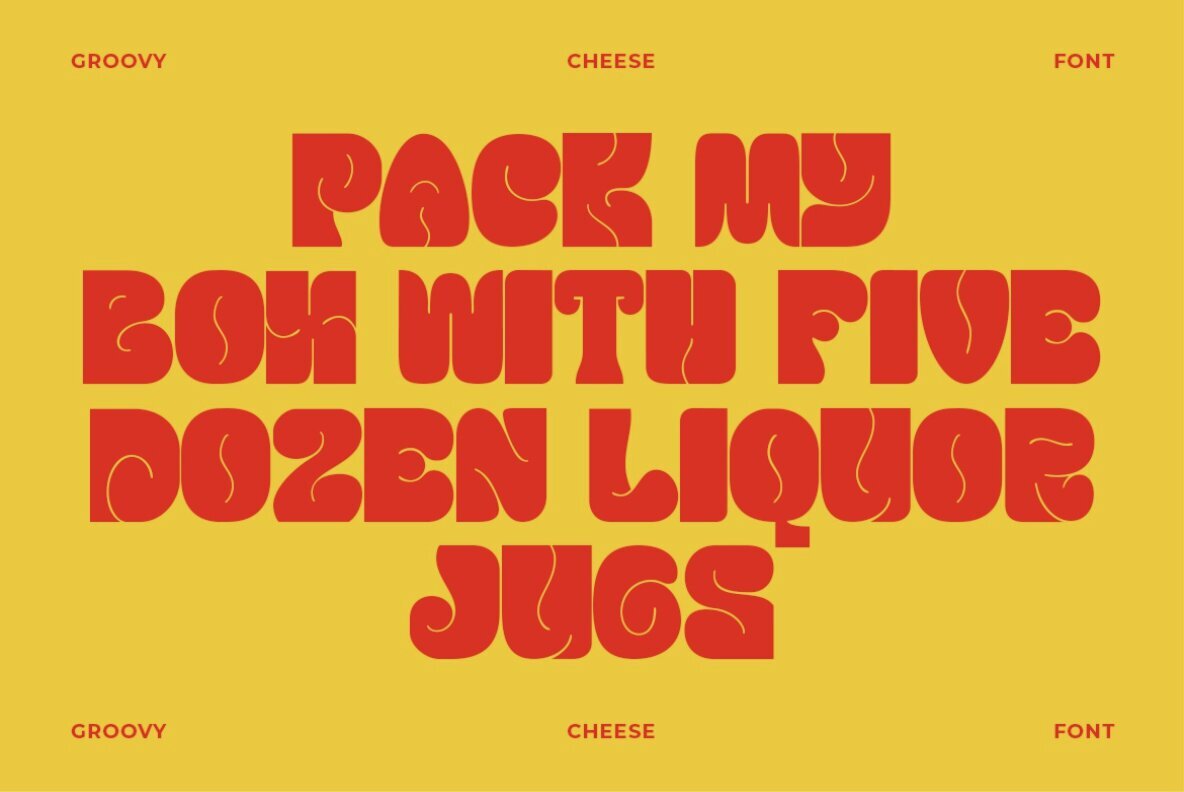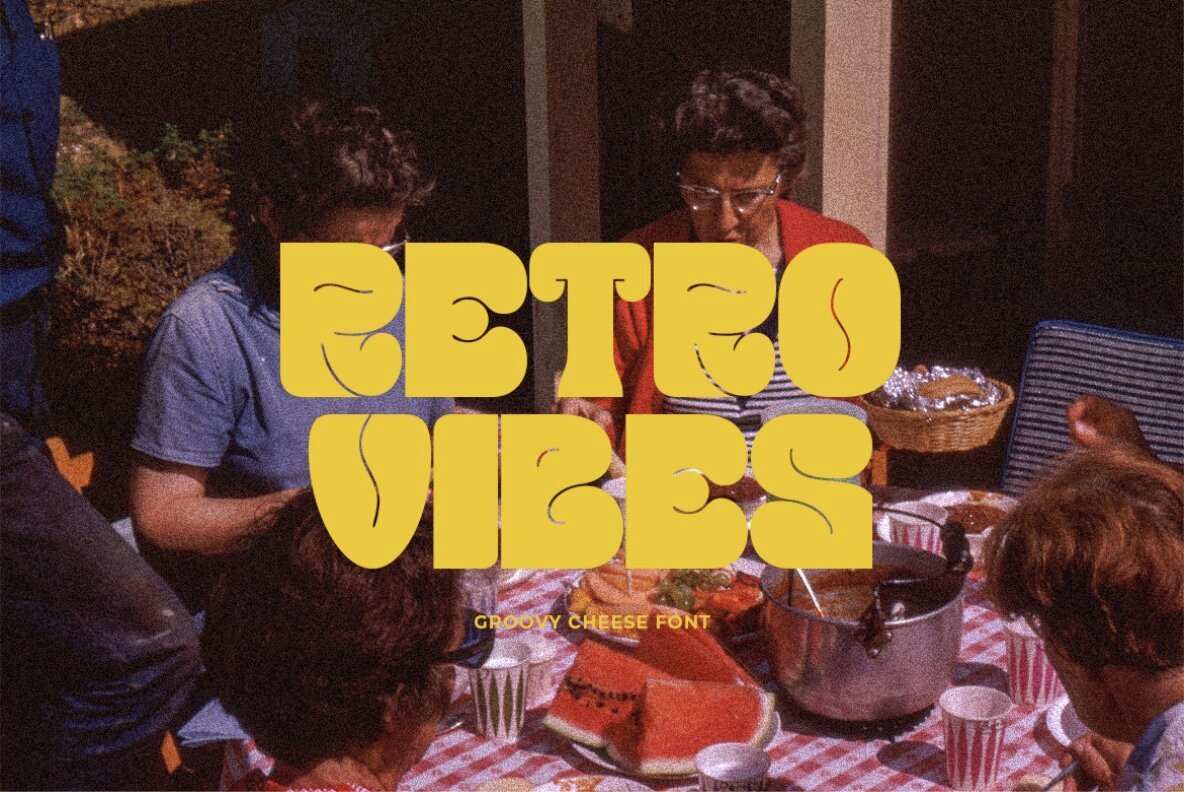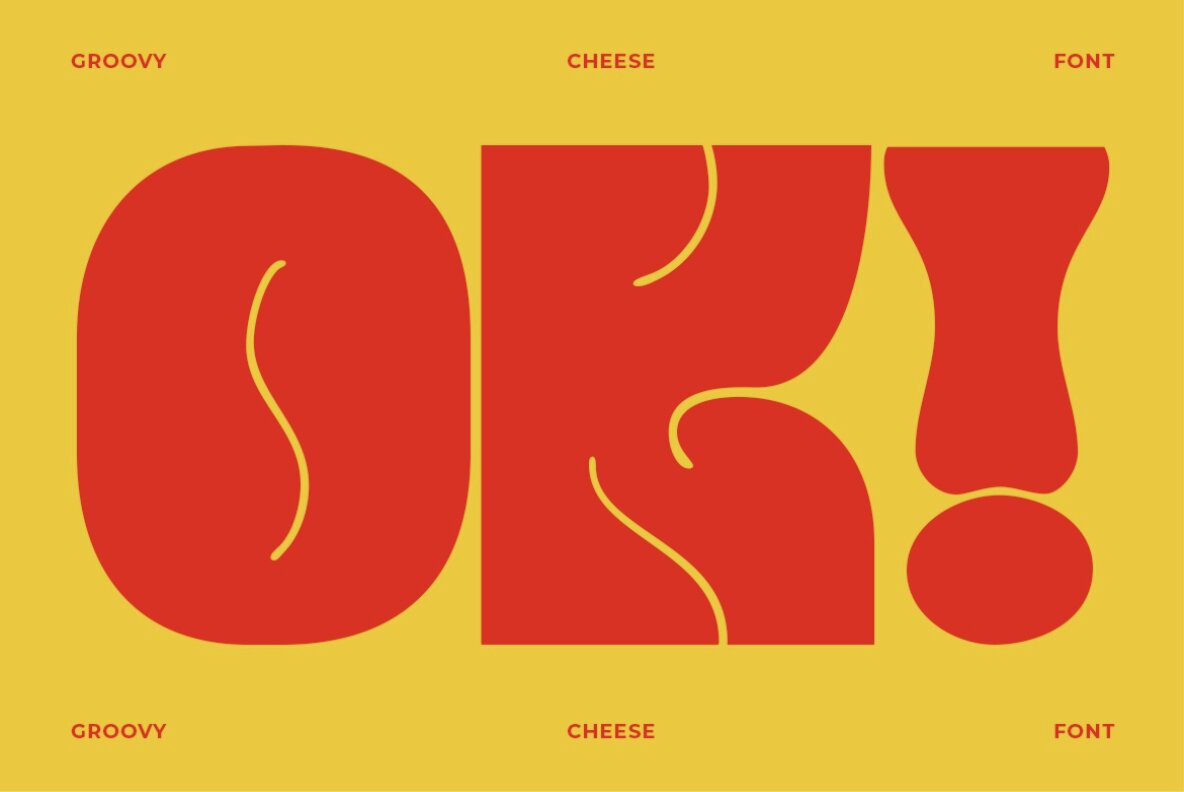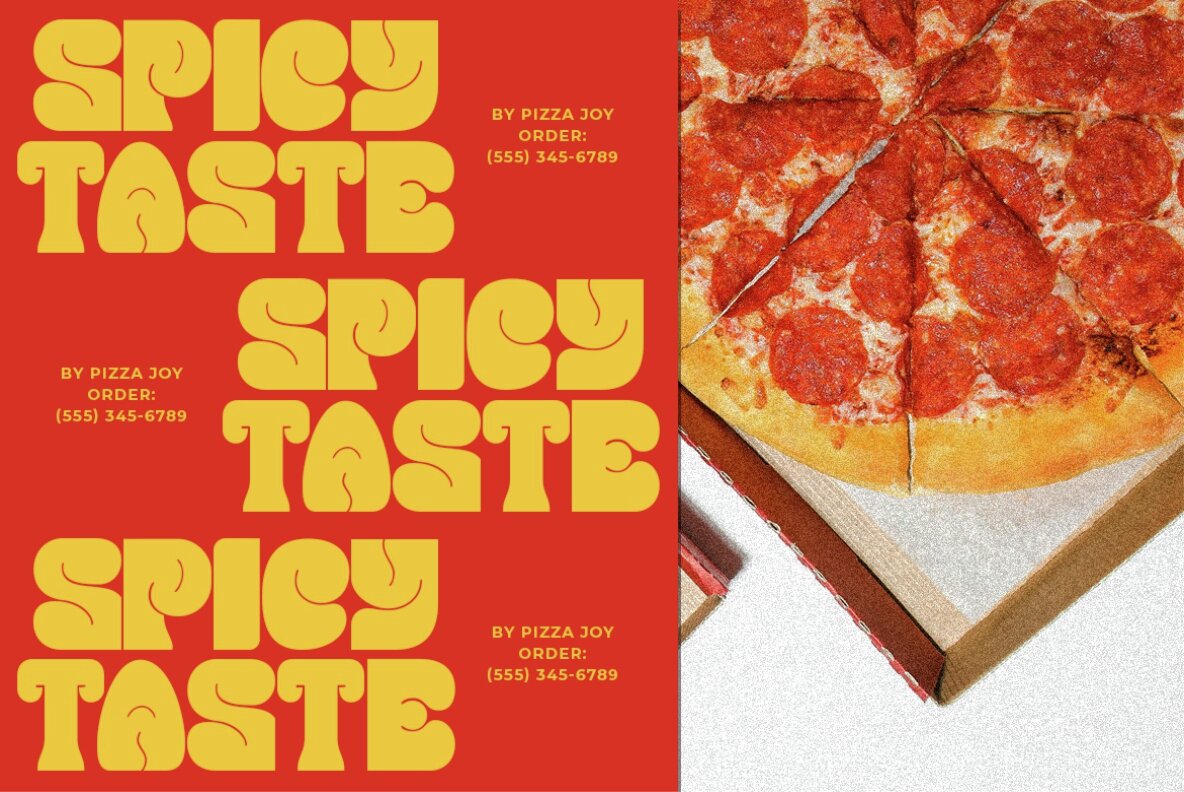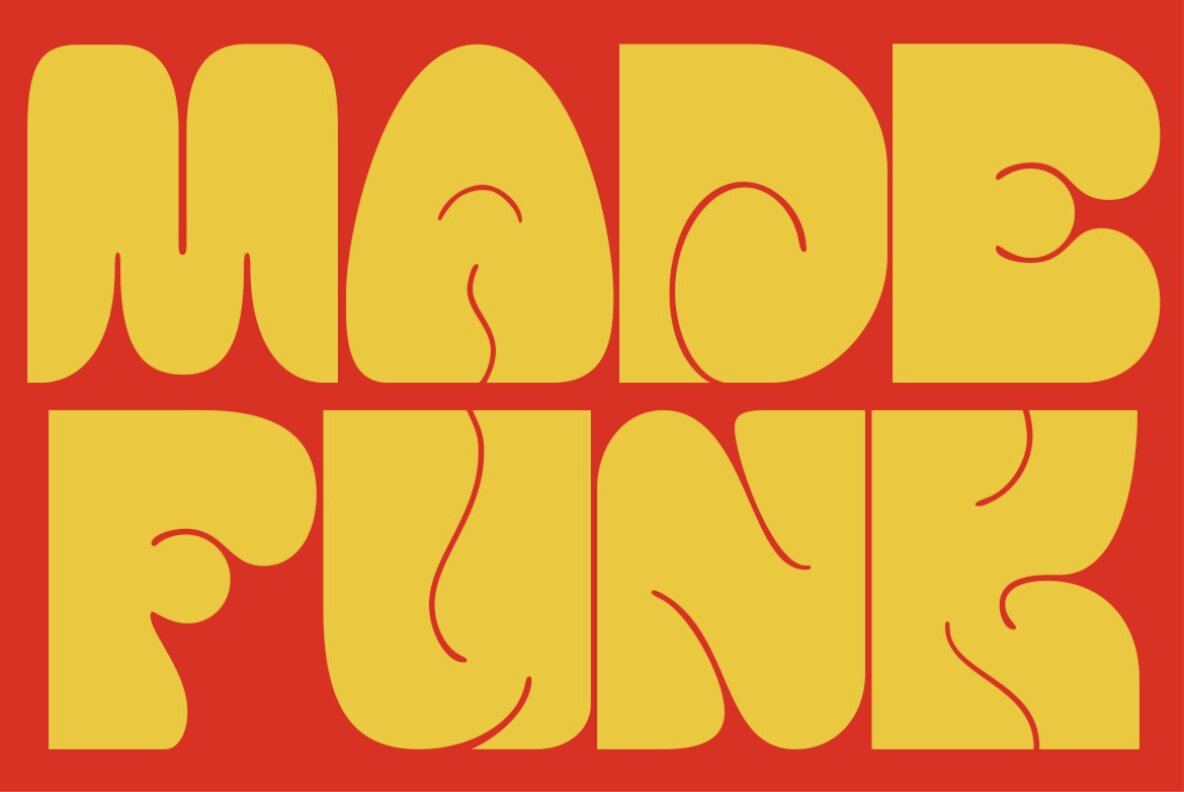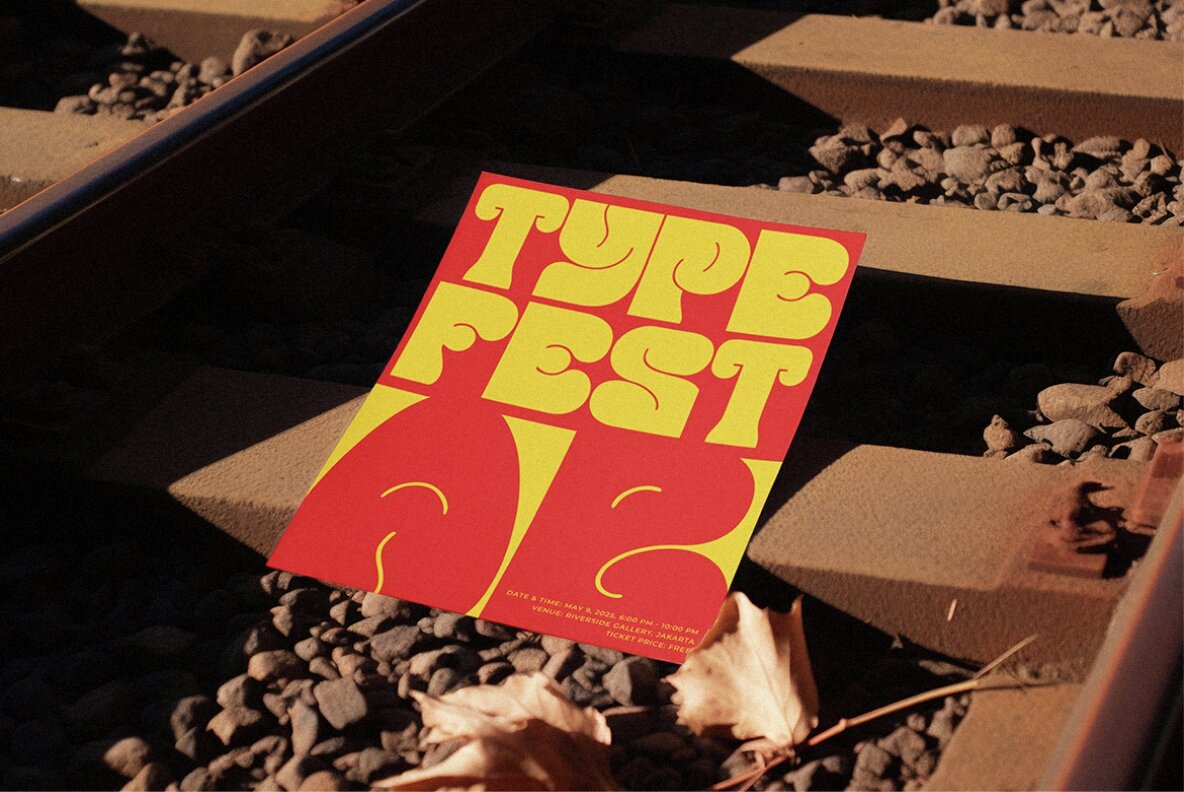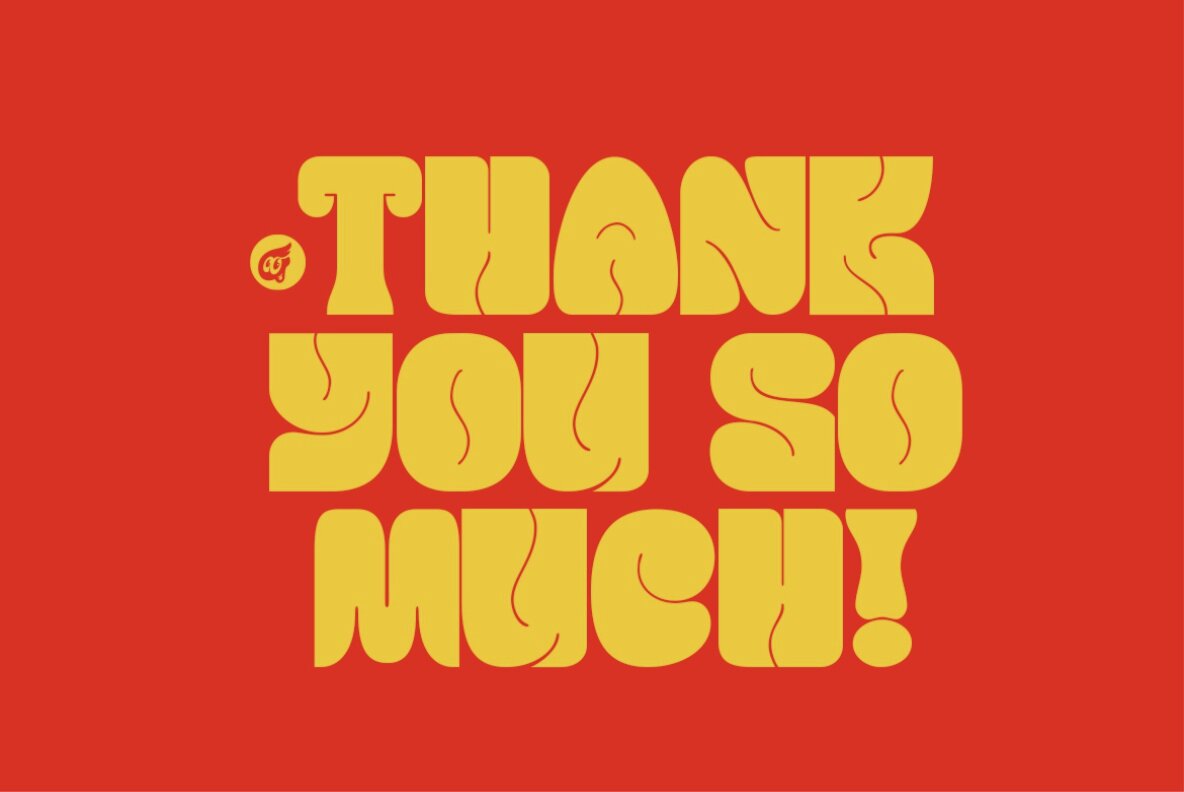
Groovy Cheese Font
Groovy Cheese
Groovy Cheese is a bold, funky font that stands out with its distinctive fat appearance and smooth curves. This design delivers a lively, playful energy, making it the perfect choice for projects looking for a touch of fun. The rounded edges and thick lines bring a whimsy and unique personality to your text, offering a modern and engaging flair that can transform any design.